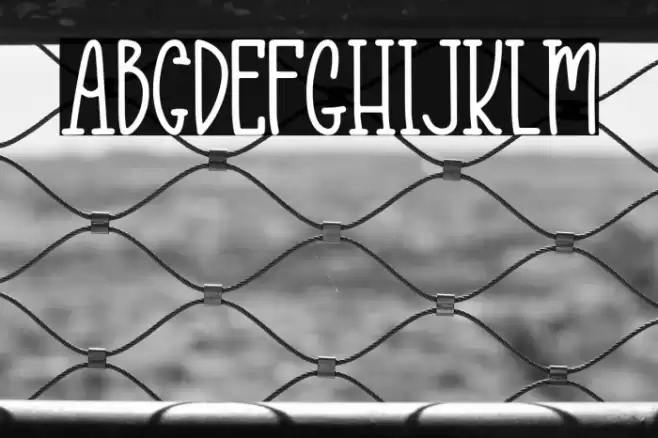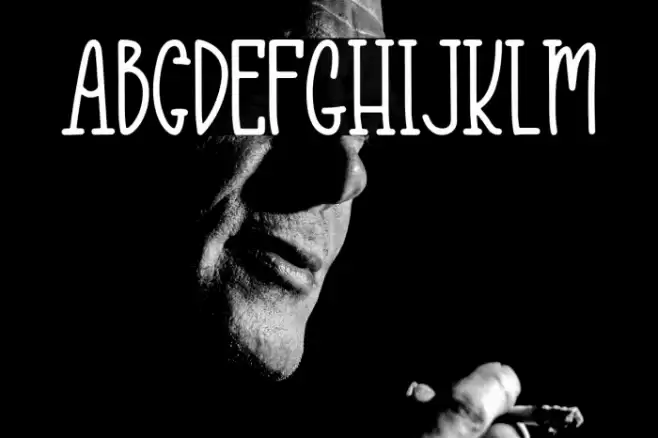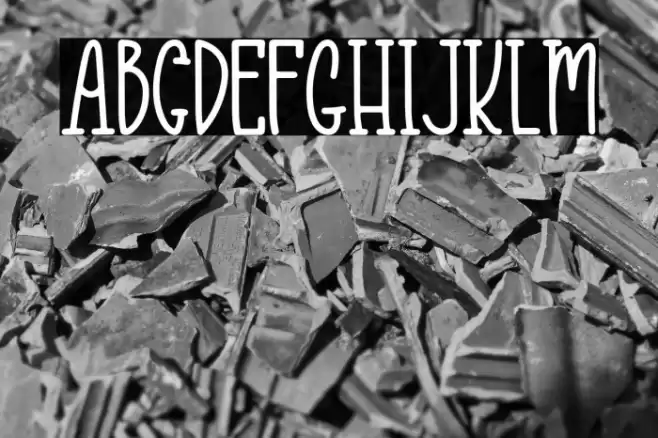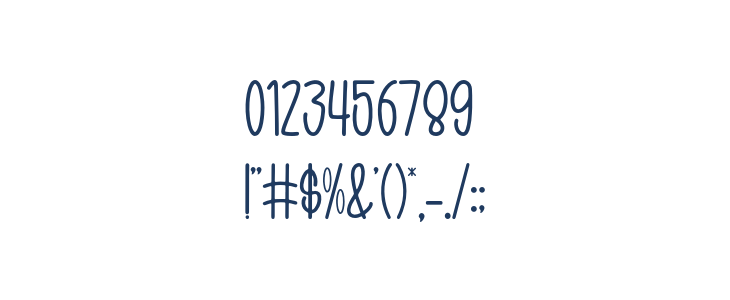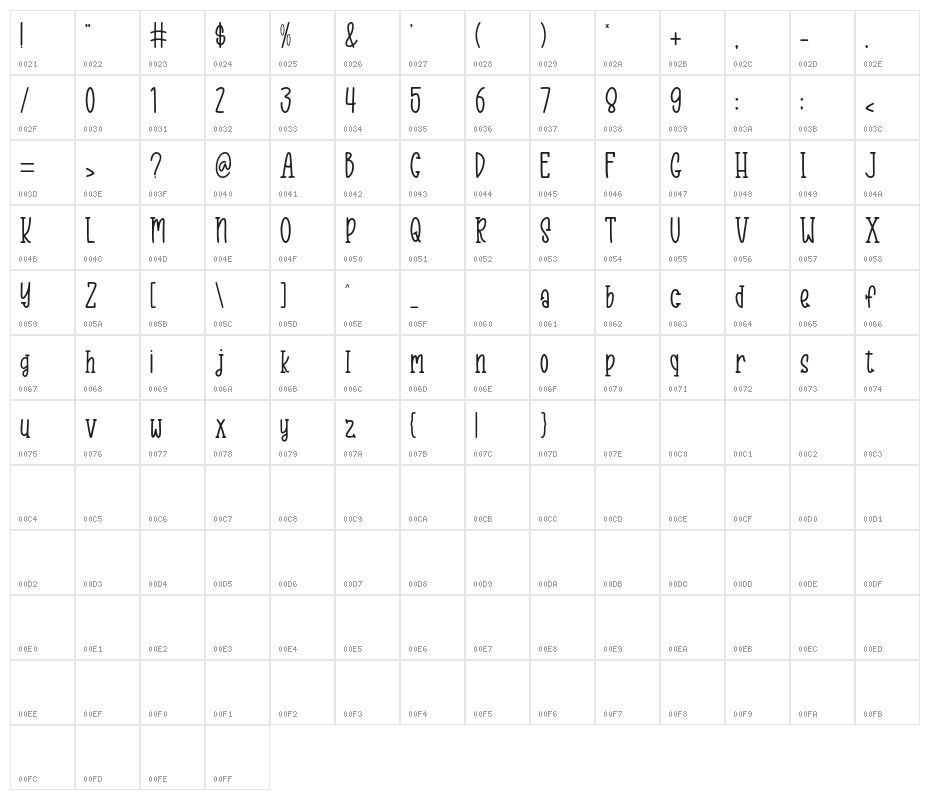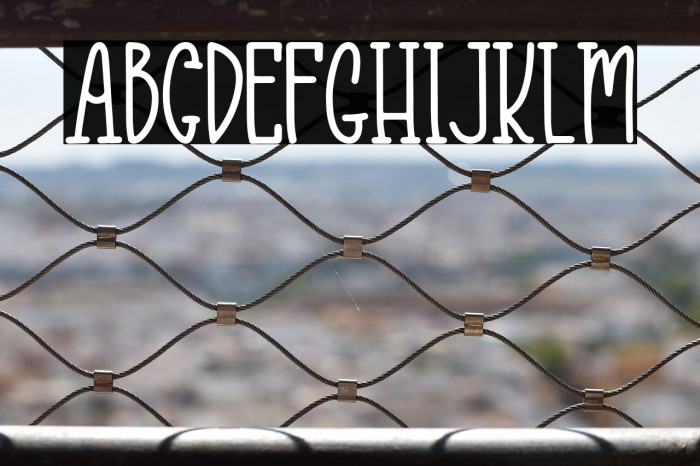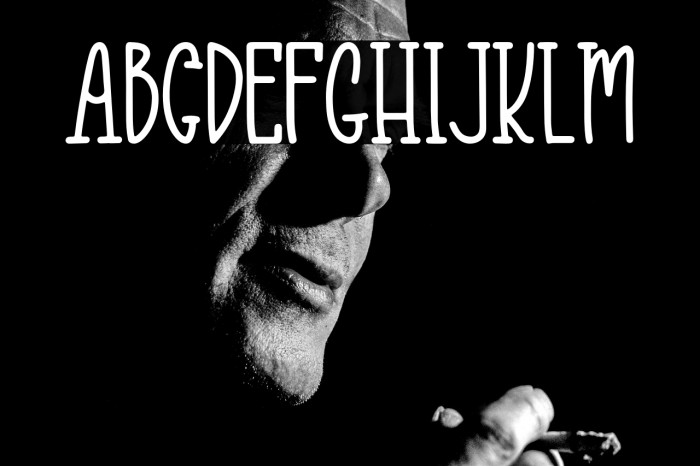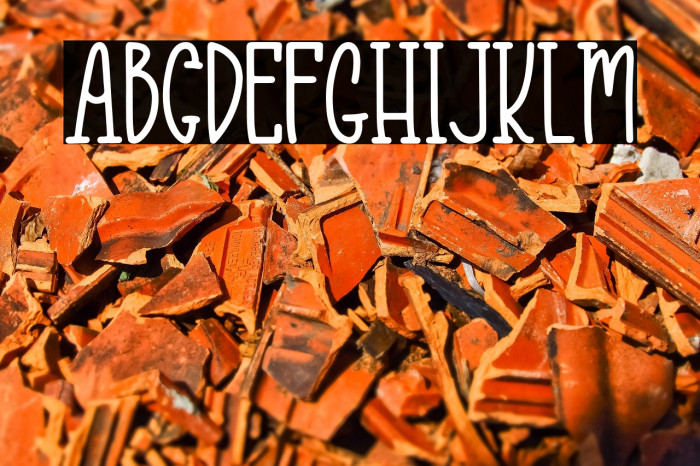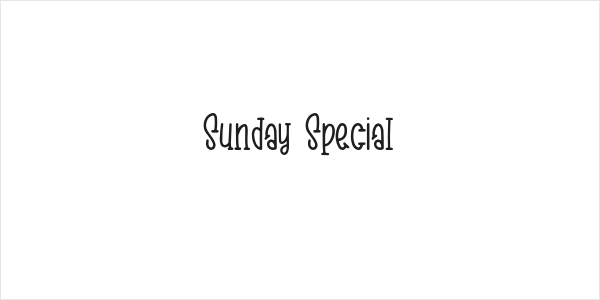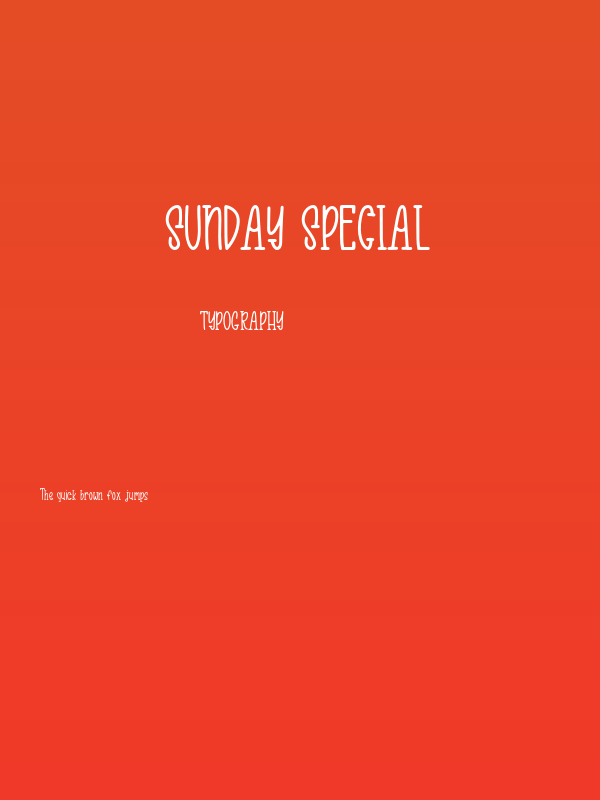
This playful and whimsical font features tall, narrow characters with a hand-drawn feel. The uppercase letters are slightly taller than the lowercase, with a consistent stroke width that gives it a clean appearance. The rounded edges and slight curves add a friendly and approachable vibe, making it ideal for casual and fun designs. The numbers are similarly styled, maintaining the font's cohesive look. Special characters are included, ensuring versatility for various design needs.
A playful, hand-drawn font with tall, narrow characters and rounded edges from Uncategorized fonts.
- Proposed Projects: Great for children's books, playful branding, greeting cards, and casual invitations.
- Overall Style: Whimsical